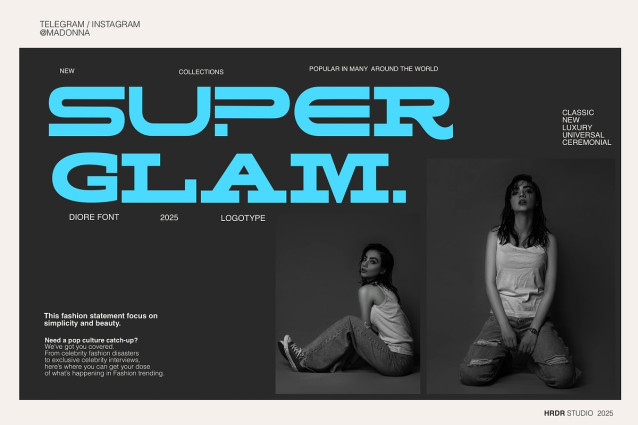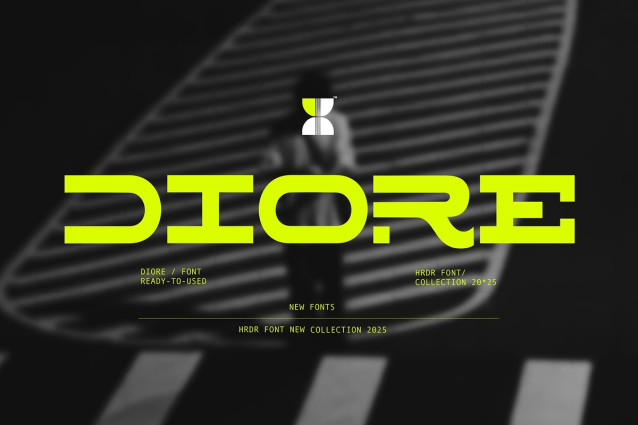
Diore Font
Diore Font, is a new Serif Display Font, this typeface design gives a modern and elegant. This font is well suited as both a workhorse text and display font for branding, advertising, packaging, headlines, magazines, websites, logo designs, and more.